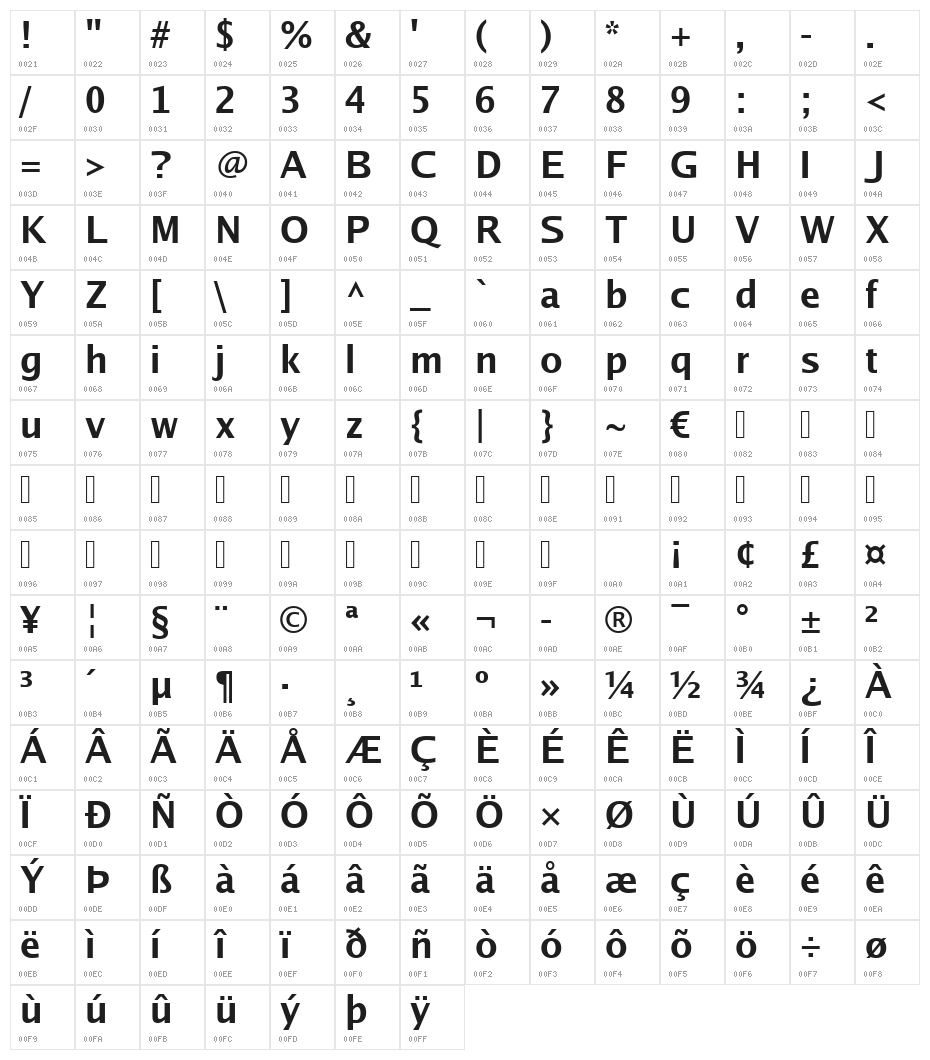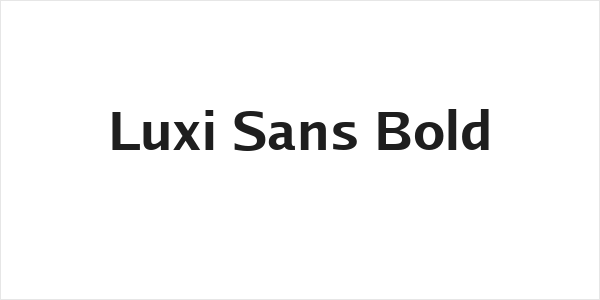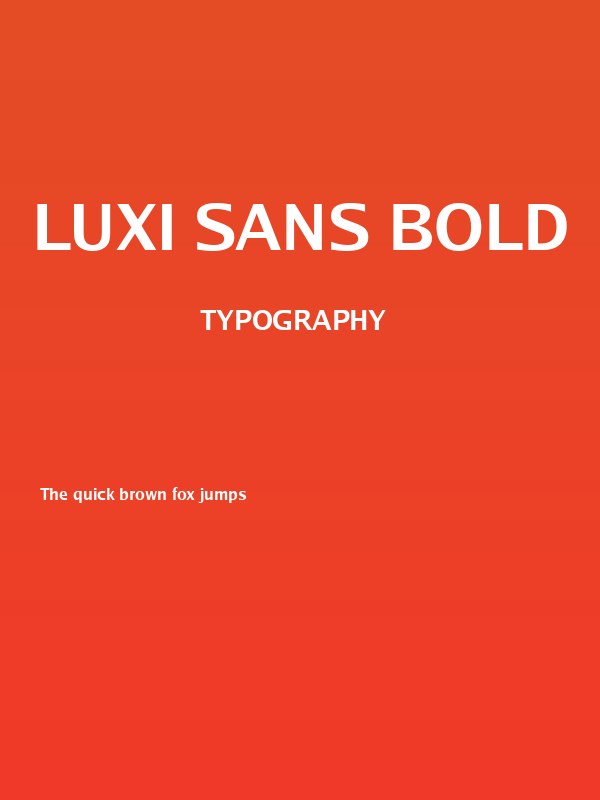
Luxi Sans Bold Font
Luxi Sans Bold Description
This font showcases a clean and modern sans-serif style with bold weight, offering excellent readability and a professional appearance. The characters are well-proportioned with consistent stroke widths, providing a uniform look across both uppercase and lowercase letters. The numerals are clear and distinct, making them suitable for various applications. Special characters are included, maintaining the same bold and straightforward design. The overall aesthetic is minimalistic yet impactful, making it versatile for numerous design projects.
| Use Case | Headlines, Logos, Web design |
| Proposed Projects | Ideal for branding, advertising, web design, and print media where clarity and impact are essential. |